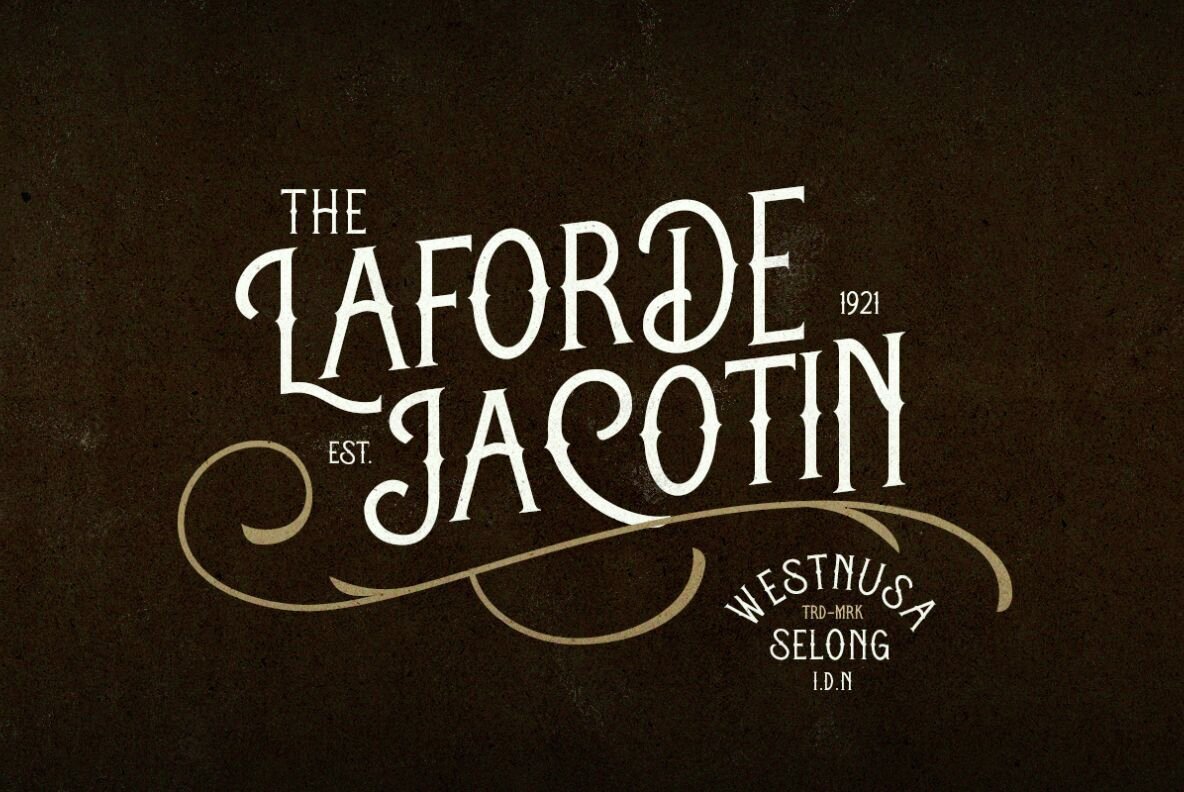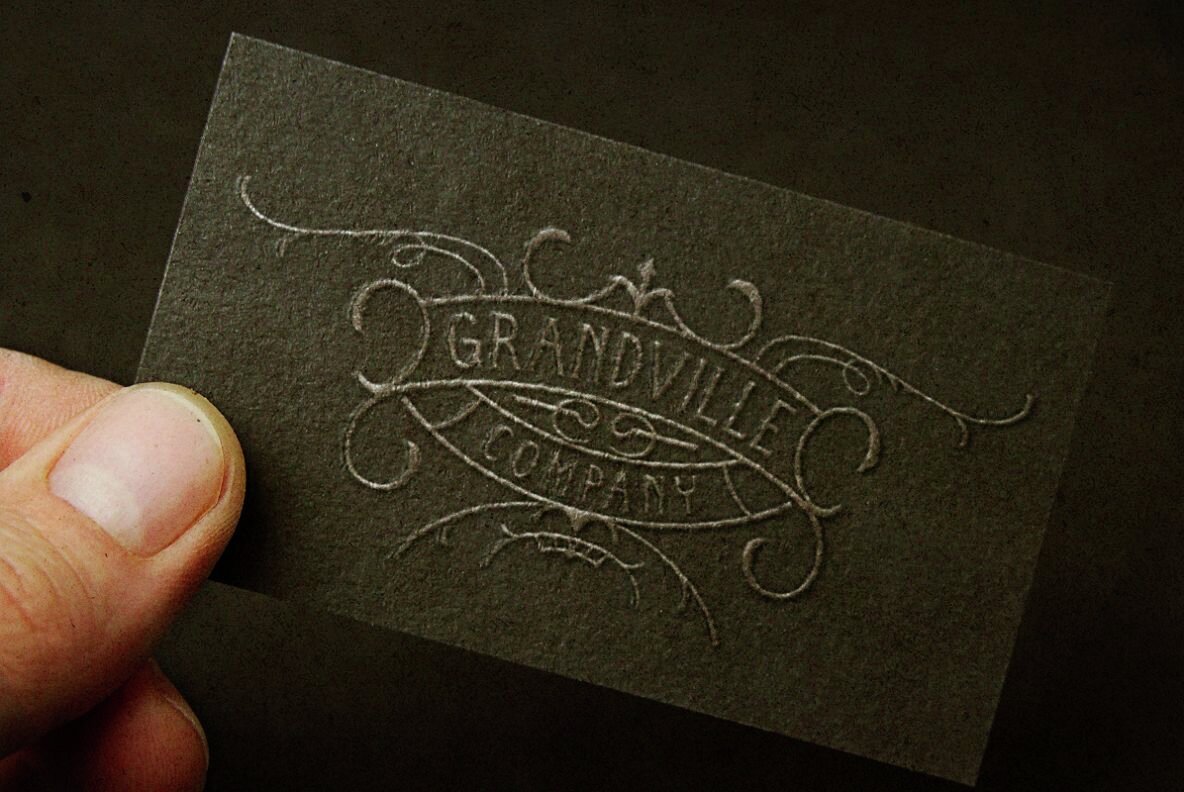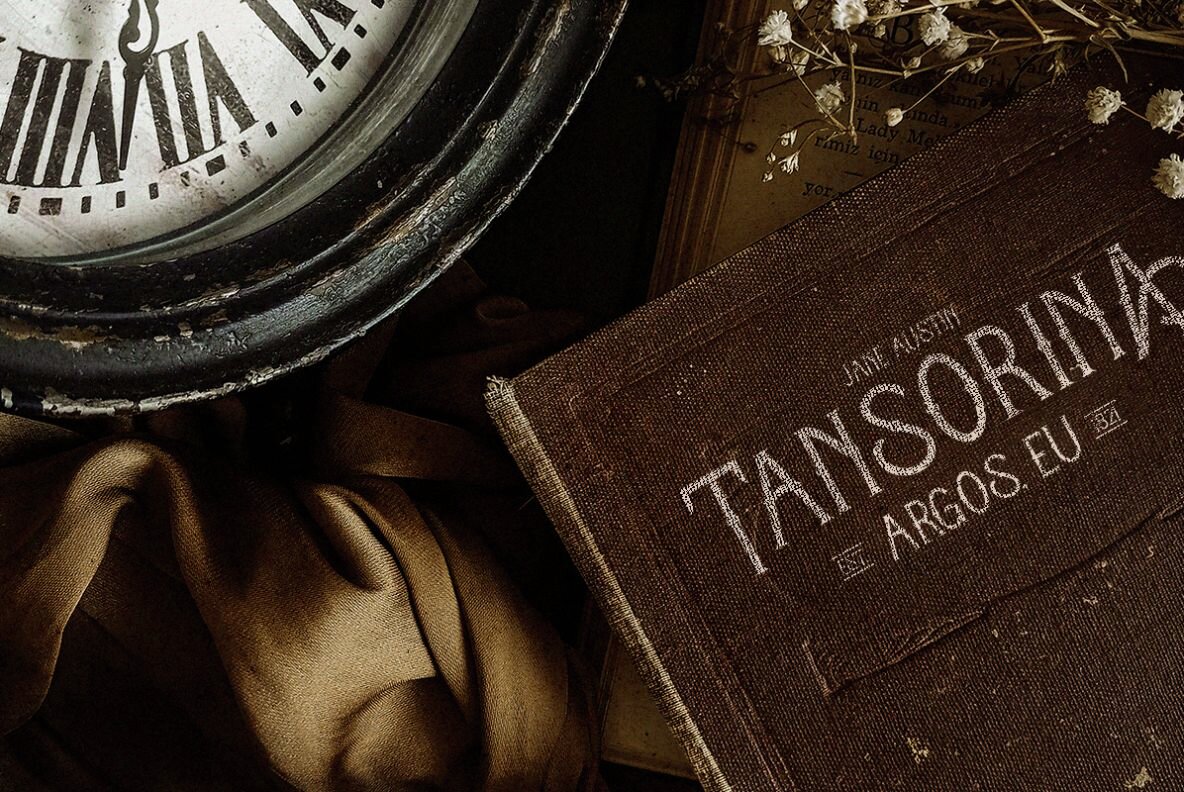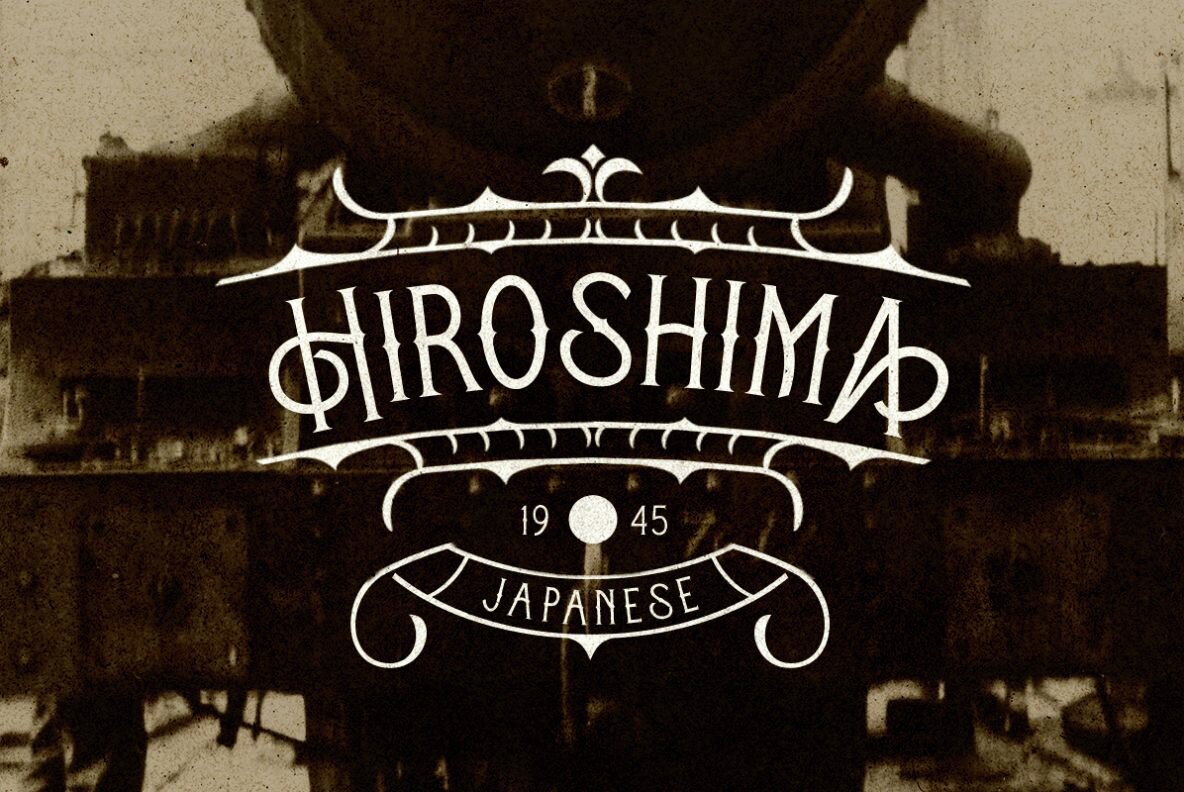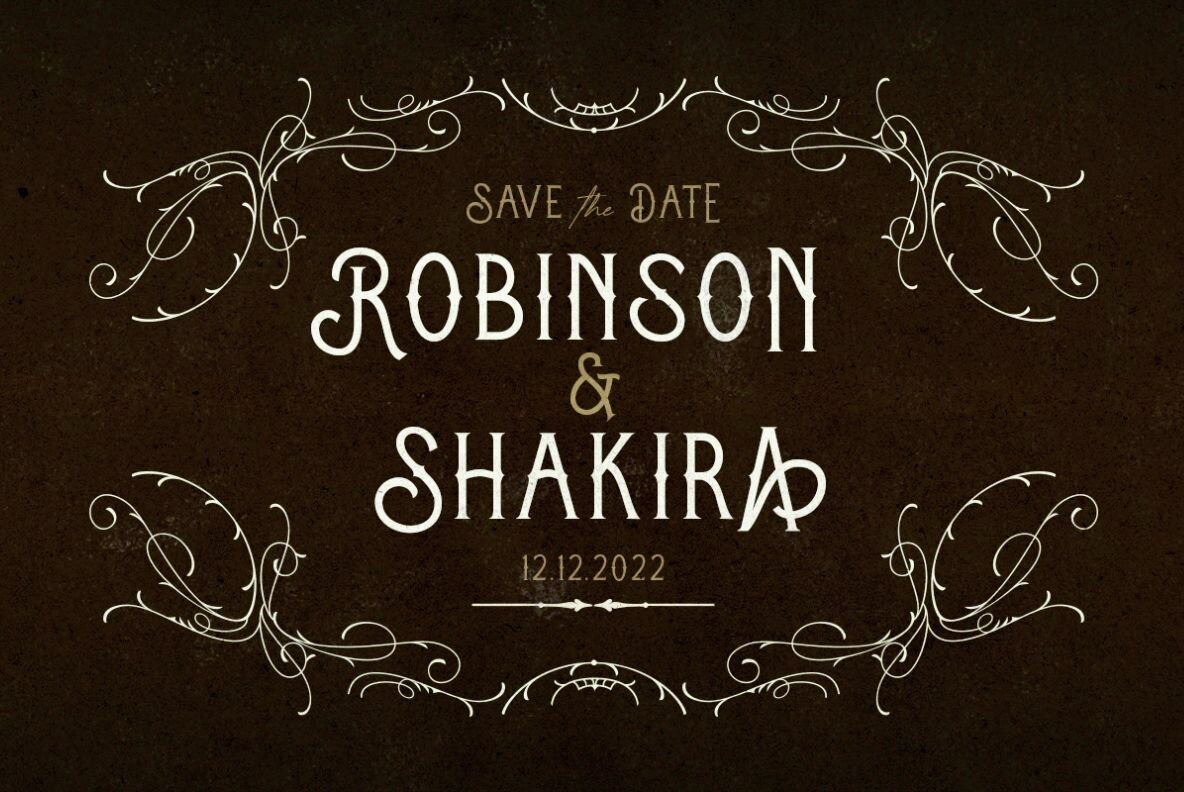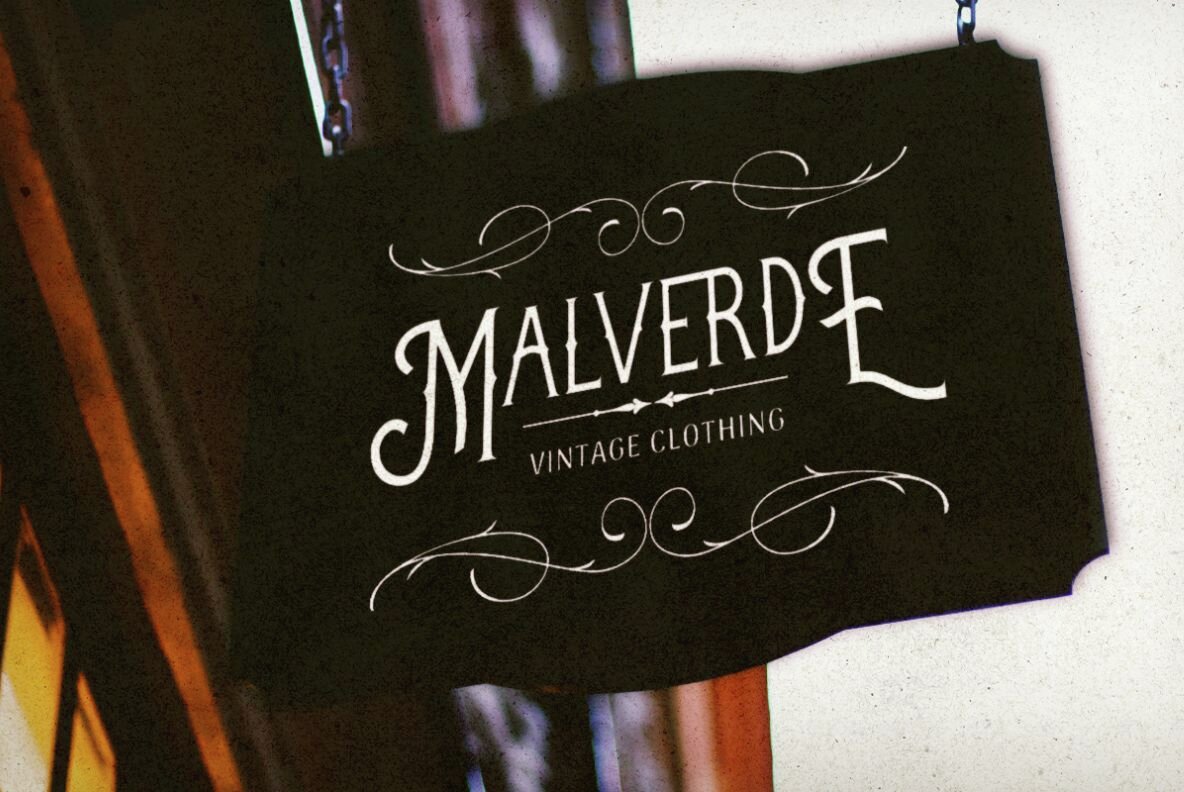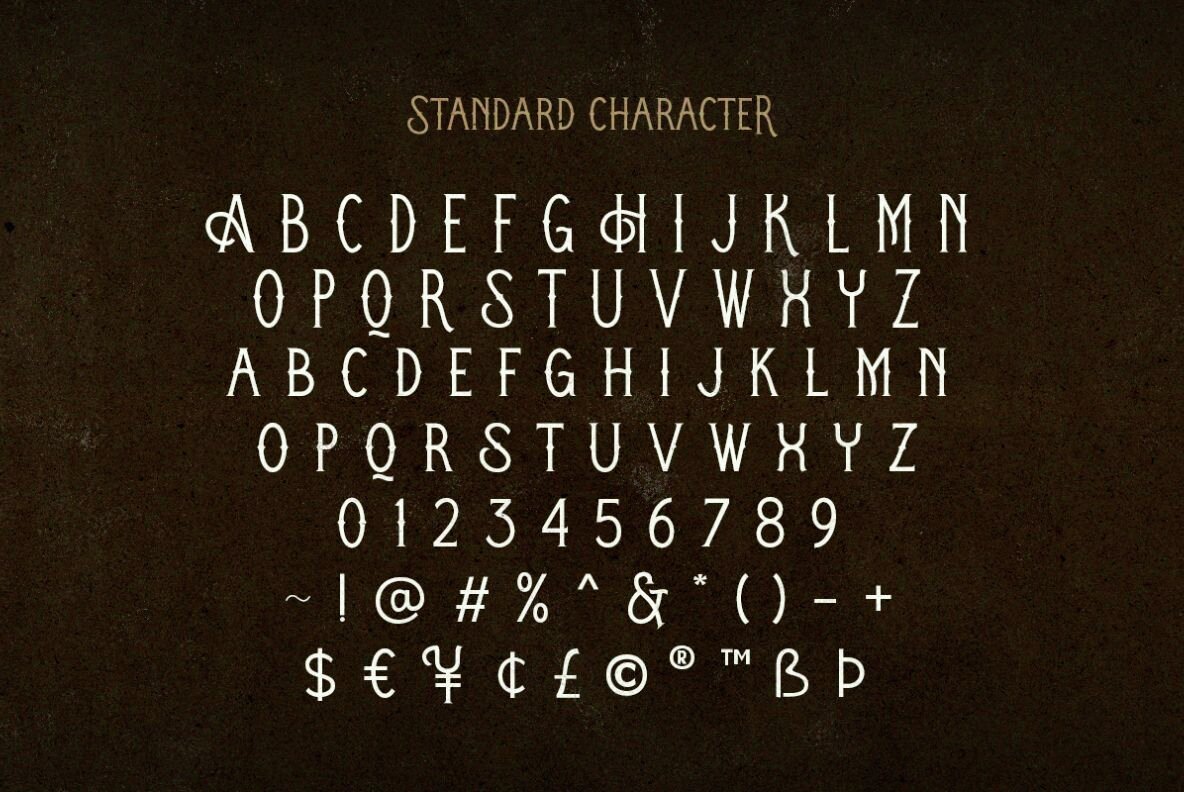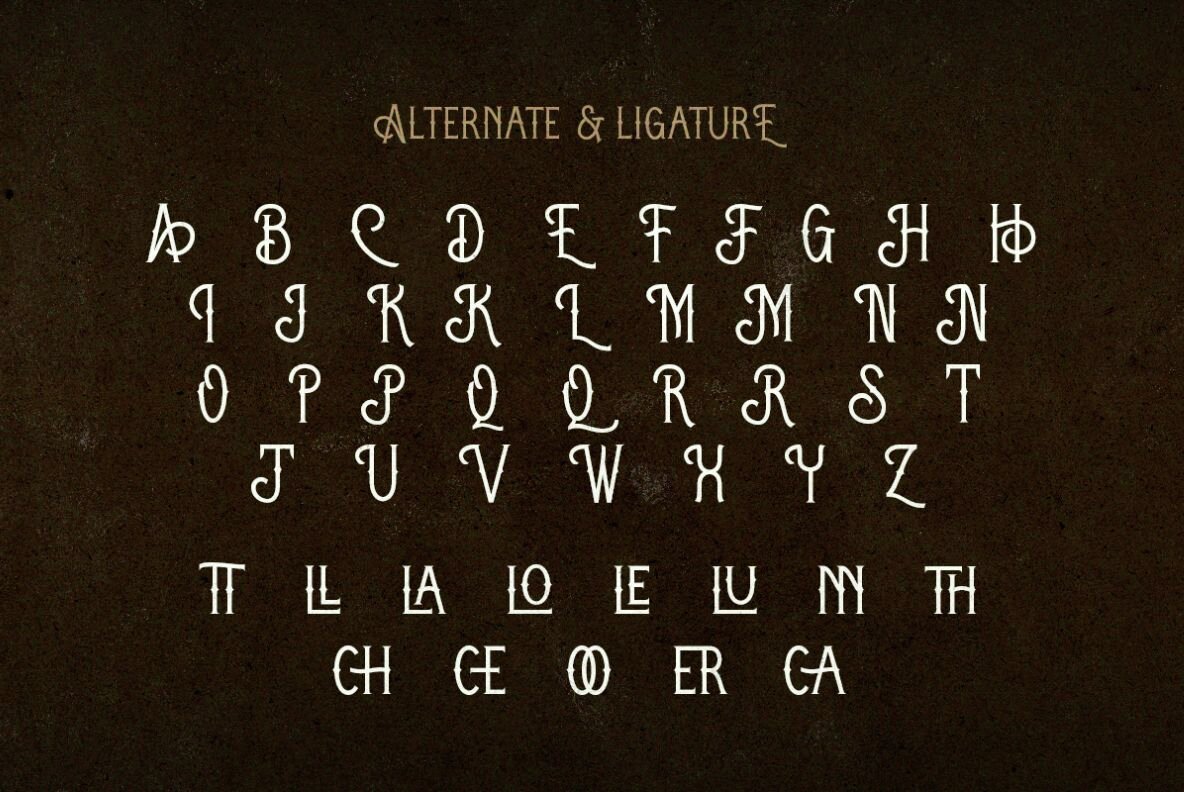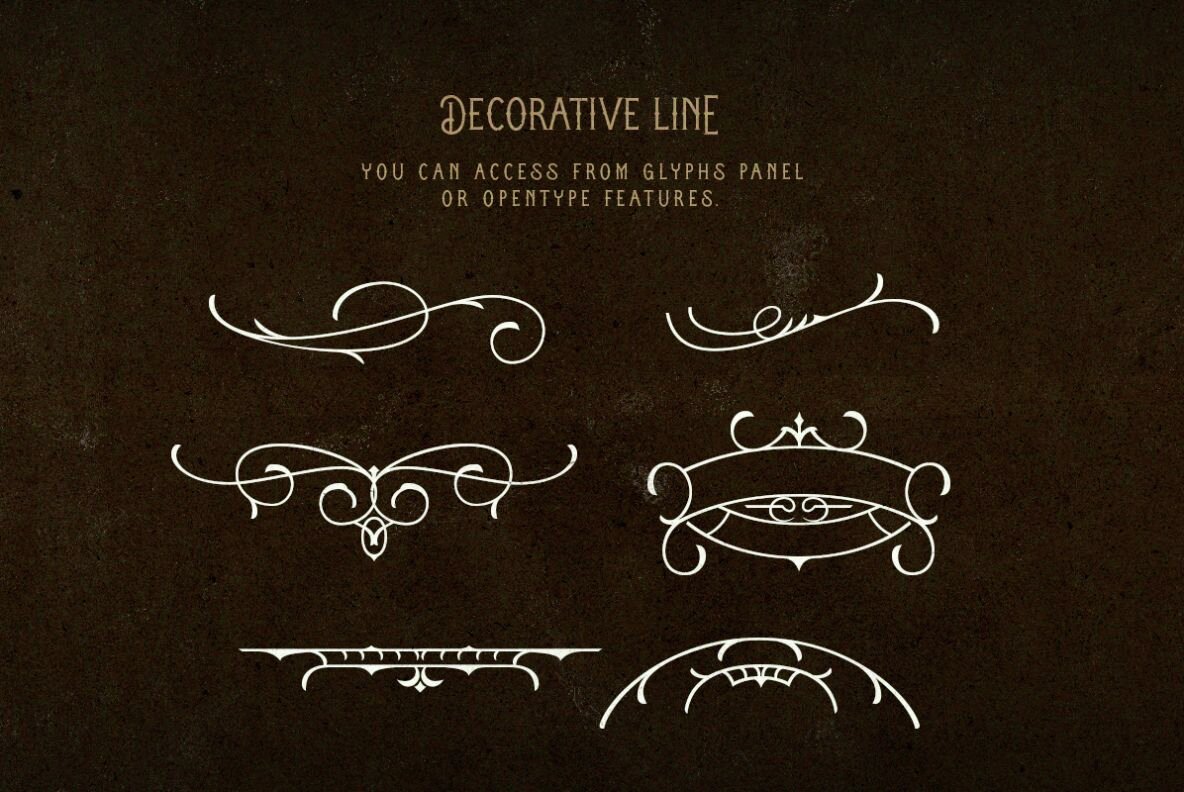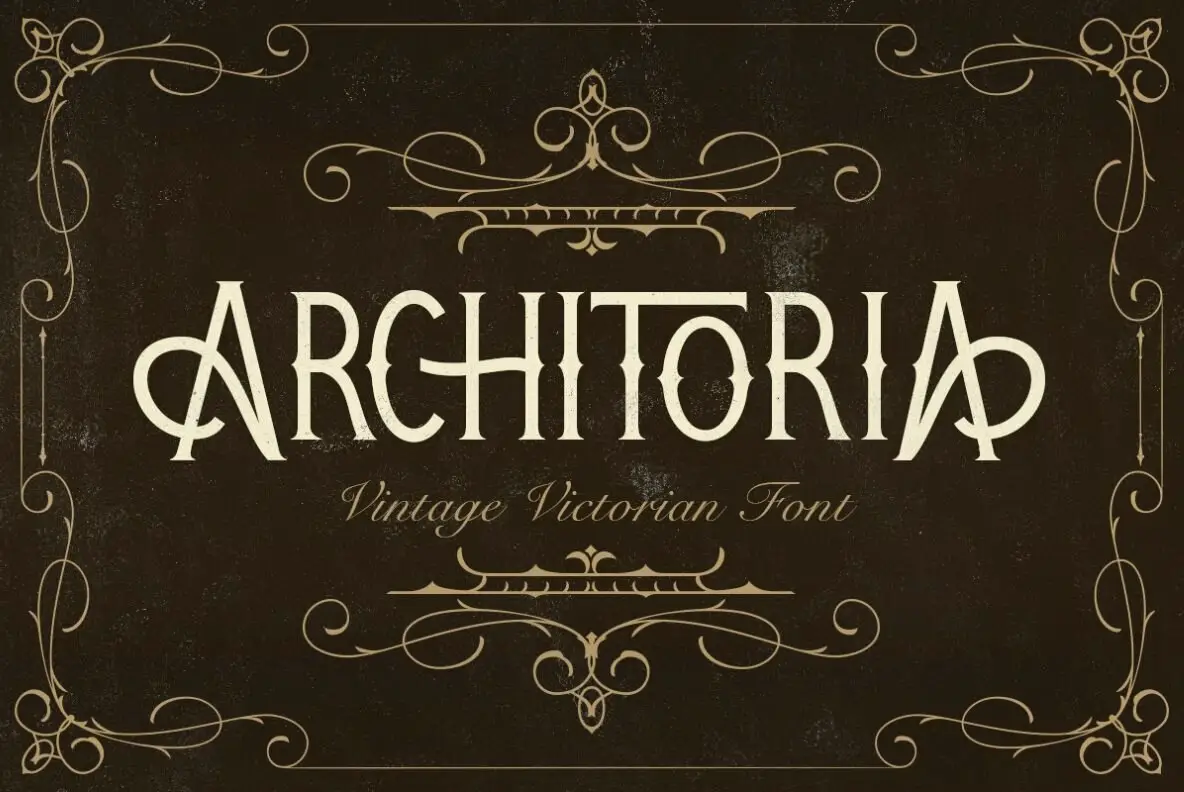
Architoria Font
Architoria Regular
Architoria is a display font characterized by its vintage Victorian style, perfect for projects that require a classic and aged appearance. Its versatile use makes it ideal for posters, logotypes, and branding endeavors. Designed with ligatures and alternates, Architoria offers numerous options to enhance the elegance and uniqueness of your designs.
Additionally, Architoria includes decorative lines accessible via OpenType features and the glyphs panel in Adobe Photoshop and Illustrator. Simply type an underscore followed by a number (1-6), for example, _3, to integrate these decorative elements seamlessly. The font also supports multiple languages, broadening its usability across diverse projects.